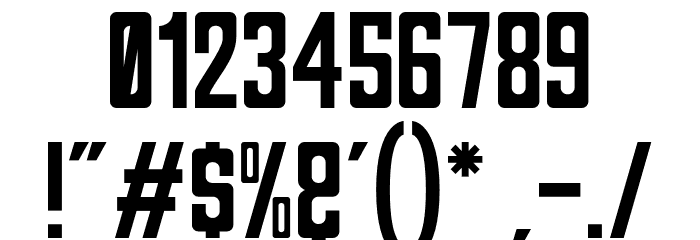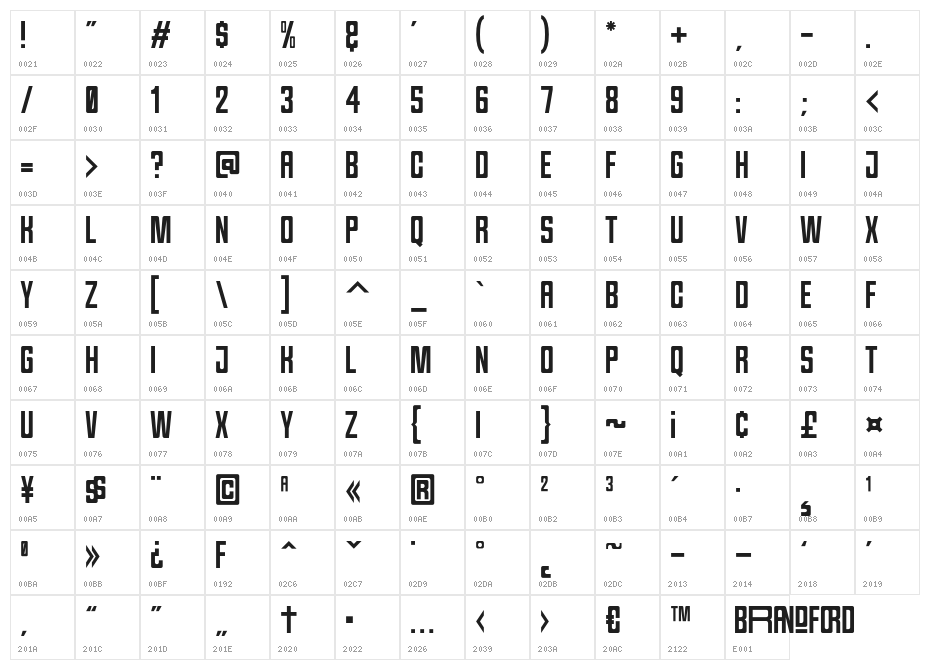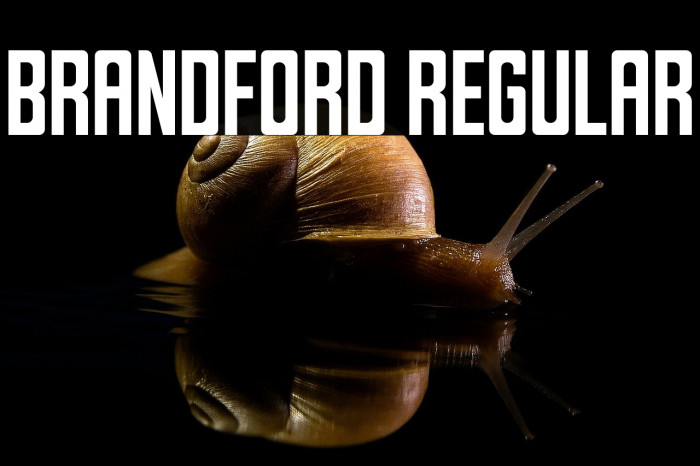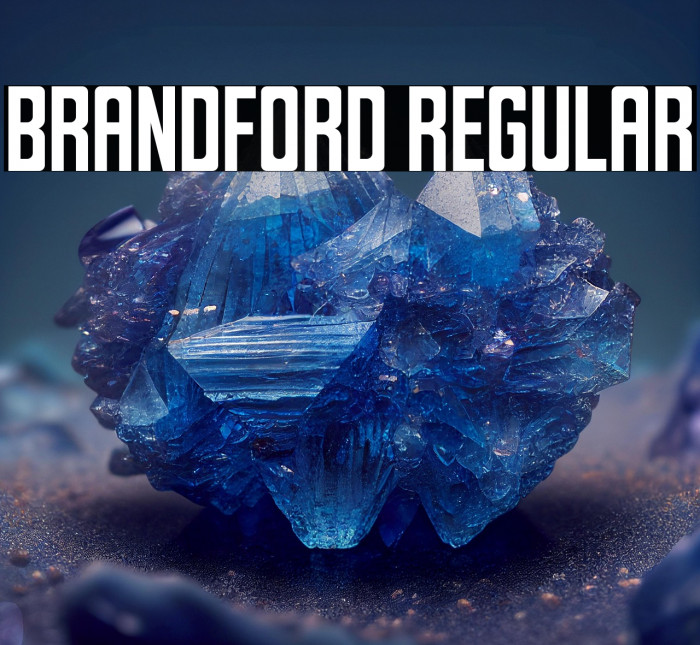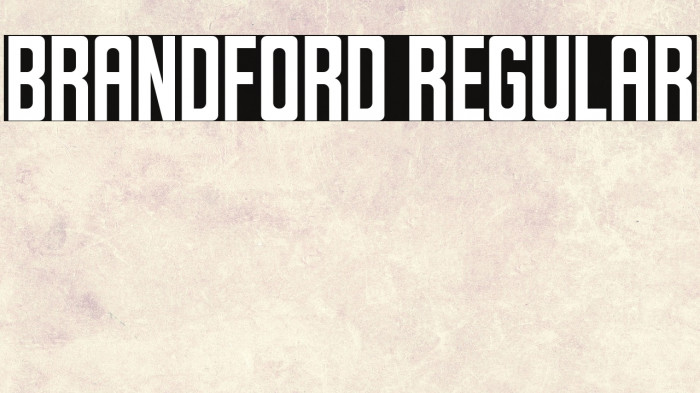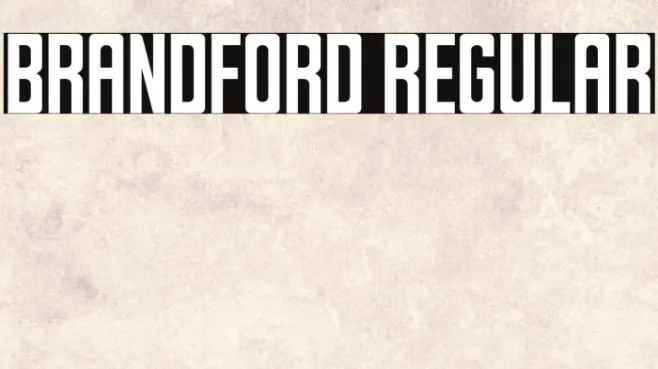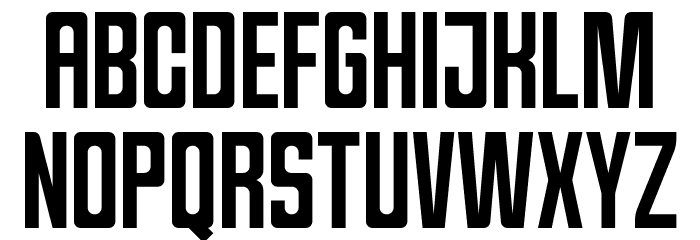
Brandford Regular Font
Brandford Regular Description
This font features a bold and impactful design with a strong presence. The characters are tall and slightly condensed, giving them a modern and assertive look. The strokes are consistent in width, providing a uniform appearance across all characters. The uppercase letters are particularly striking, with sharp angles and clean lines, making them ideal for attention-grabbing headlines. The numerals and special characters maintain the same bold style, ensuring cohesion throughout any text. This font's design is both functional and stylish, suitable for a variety of applications where a strong visual impact is desired.
| Proposed Projects | Ideal for branding, posters, headlines, and any project requiring a strong visual impact. |